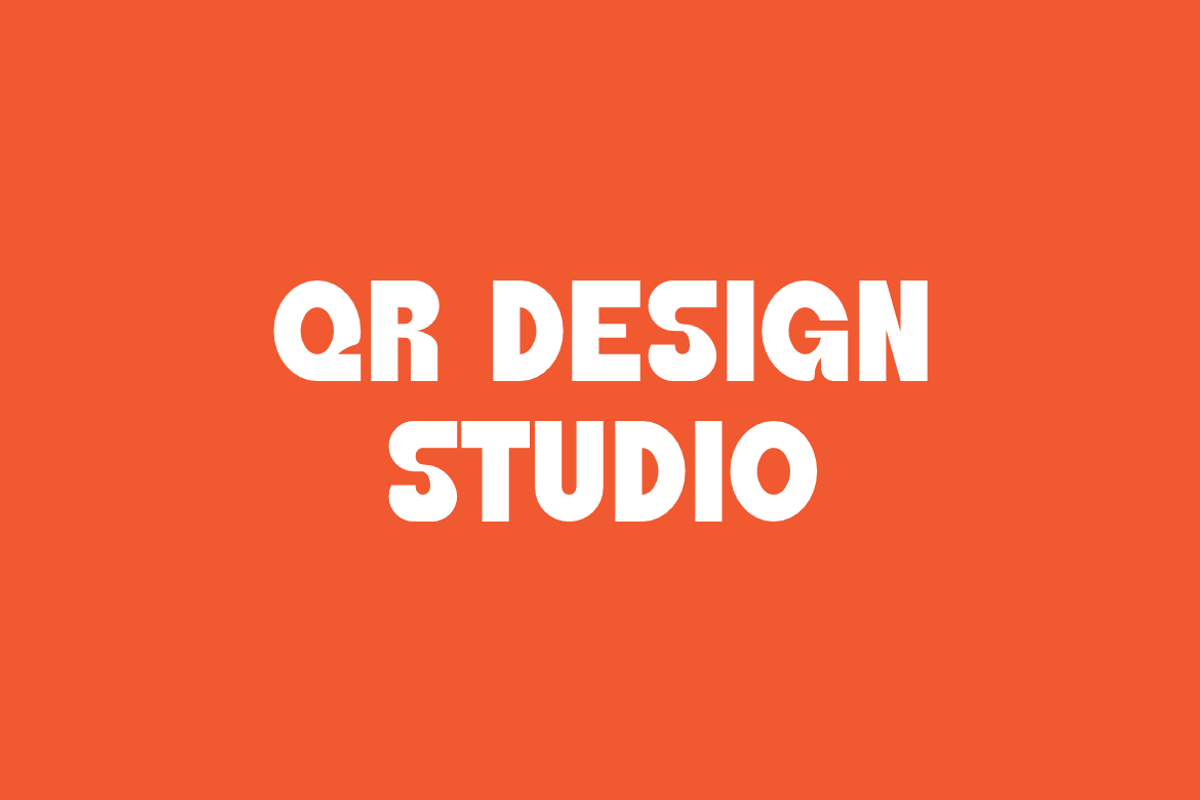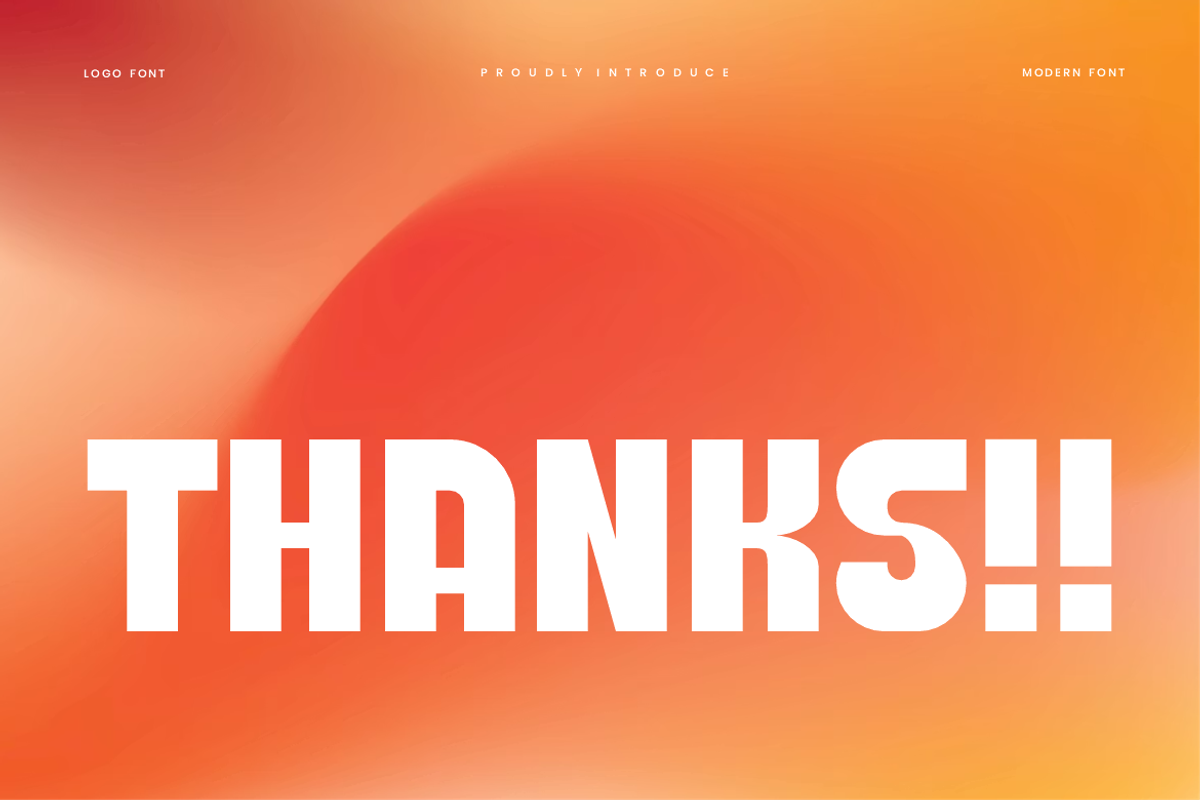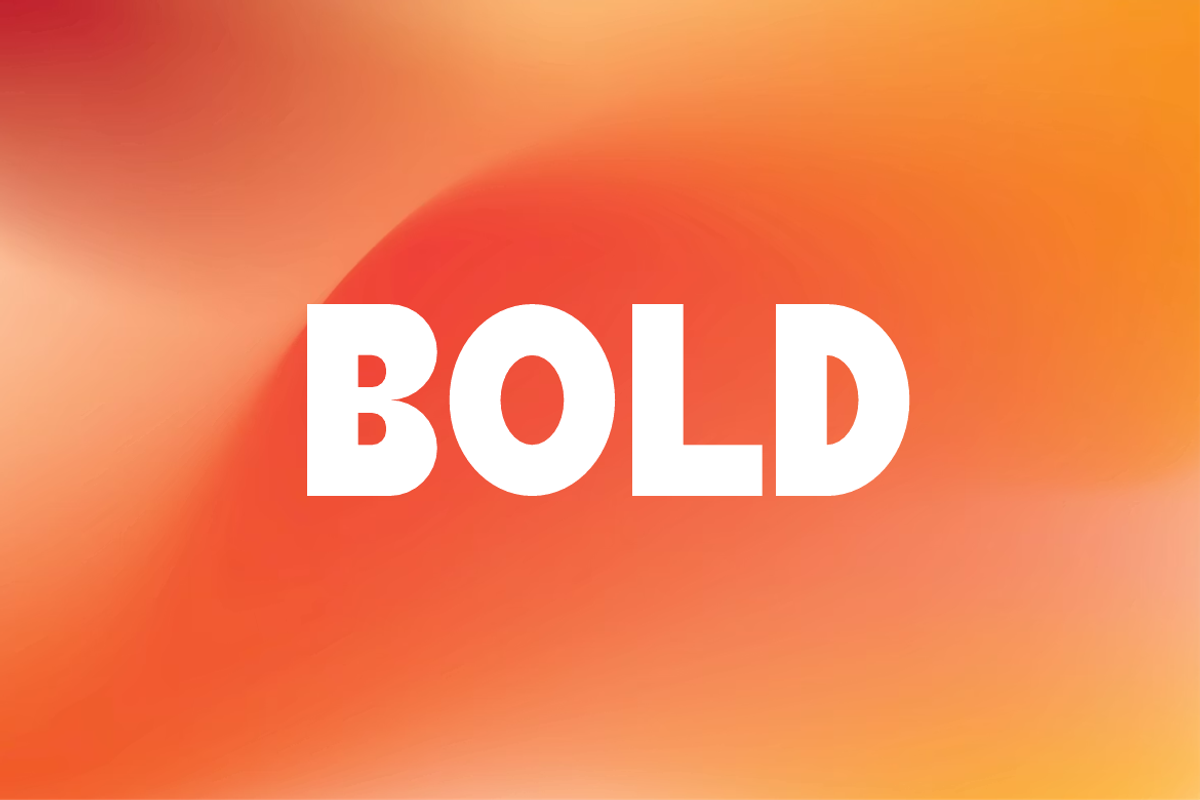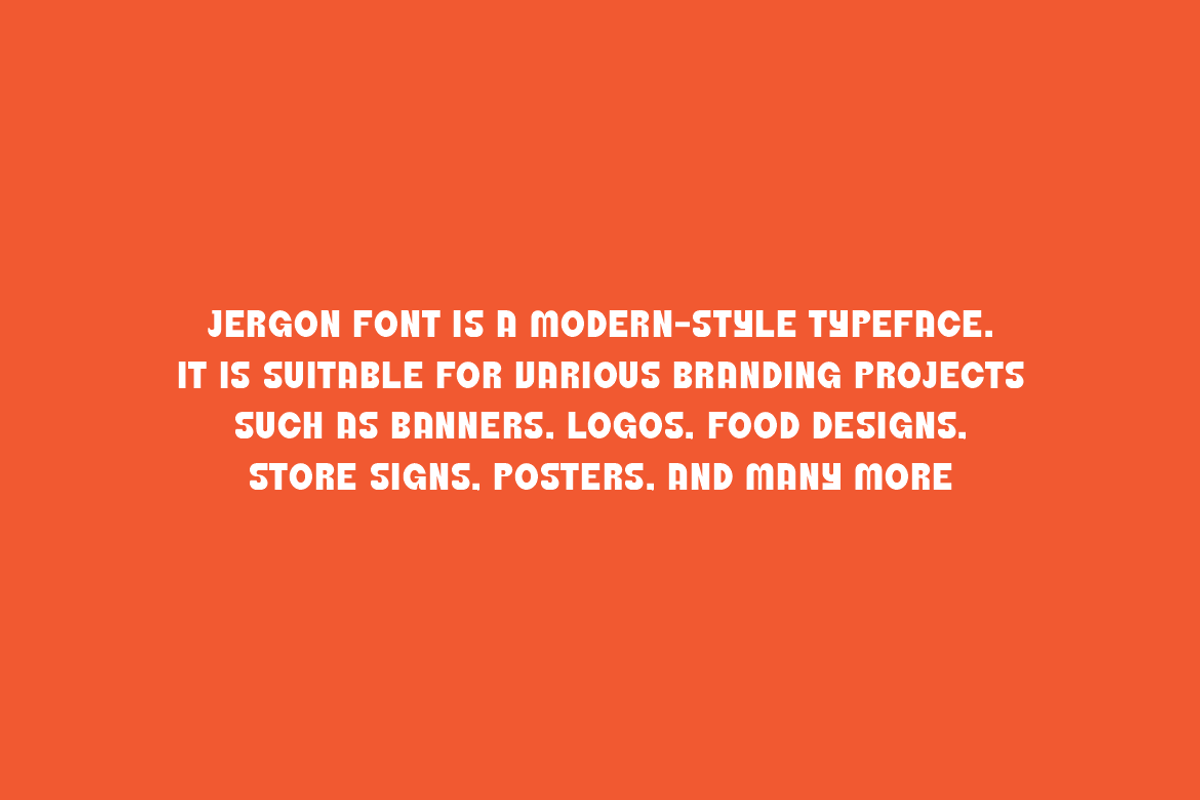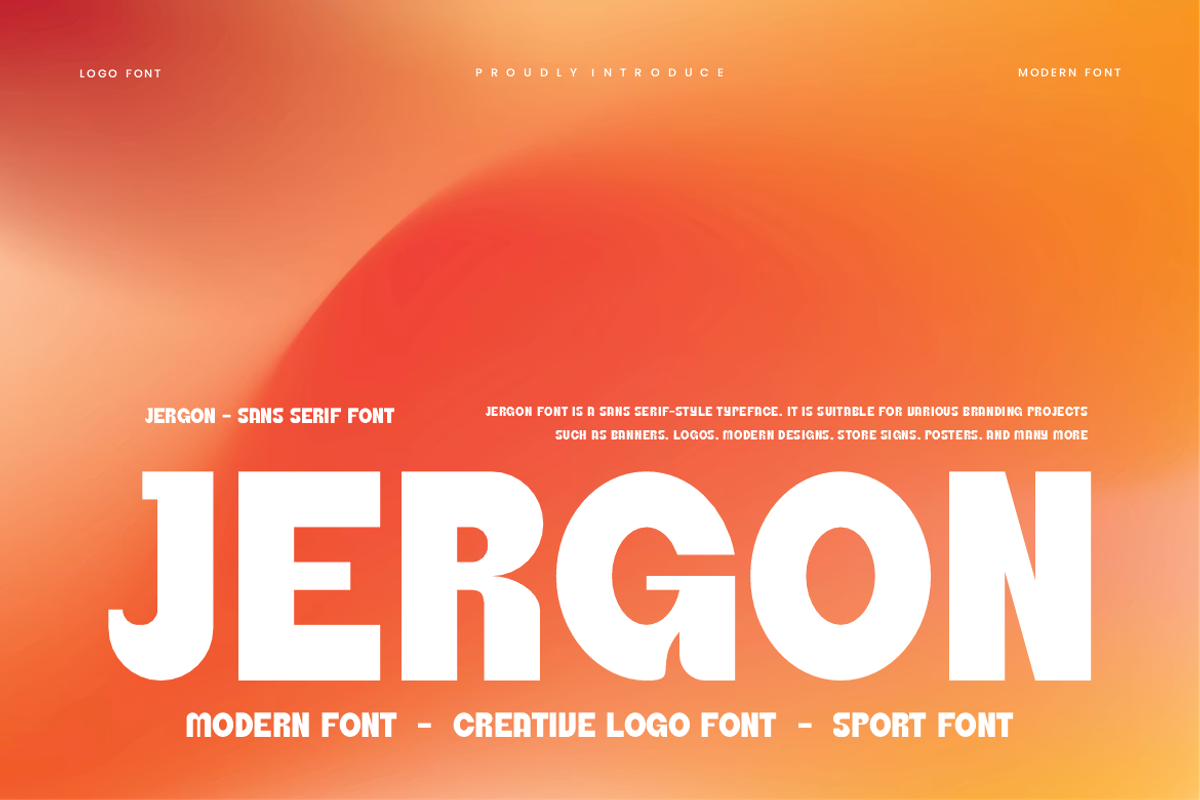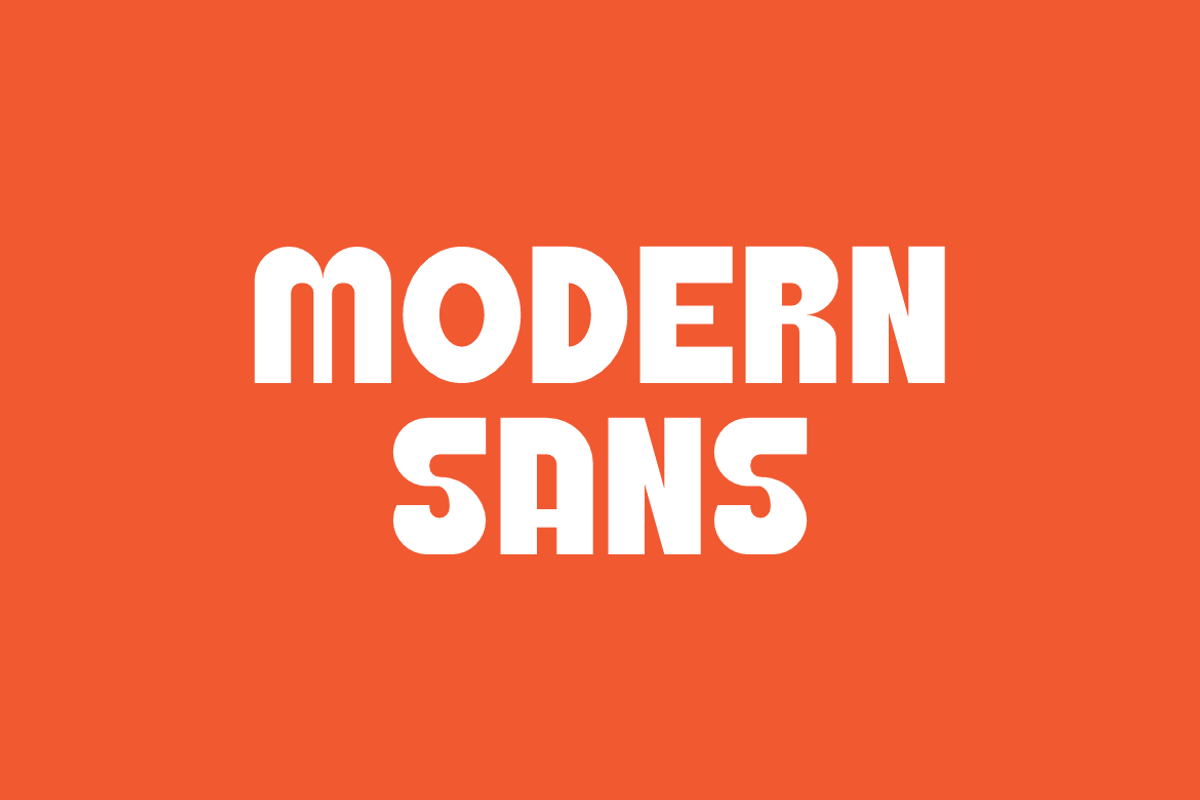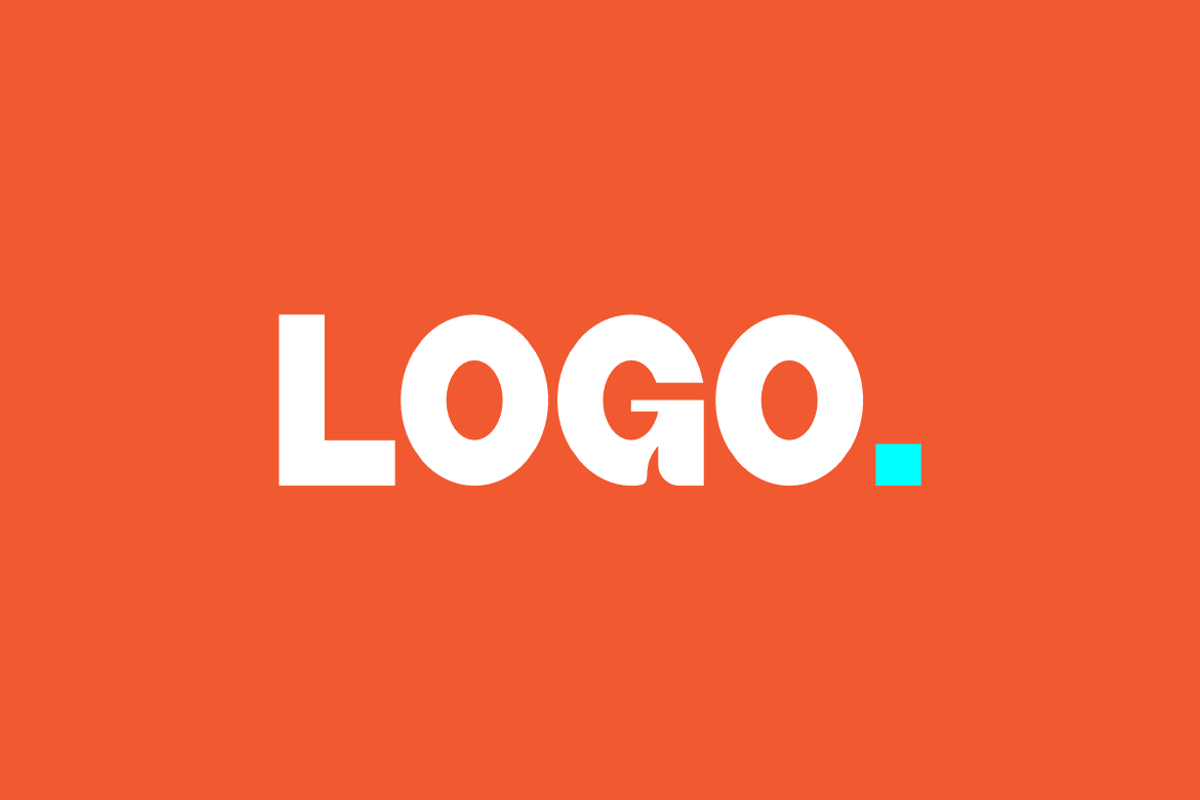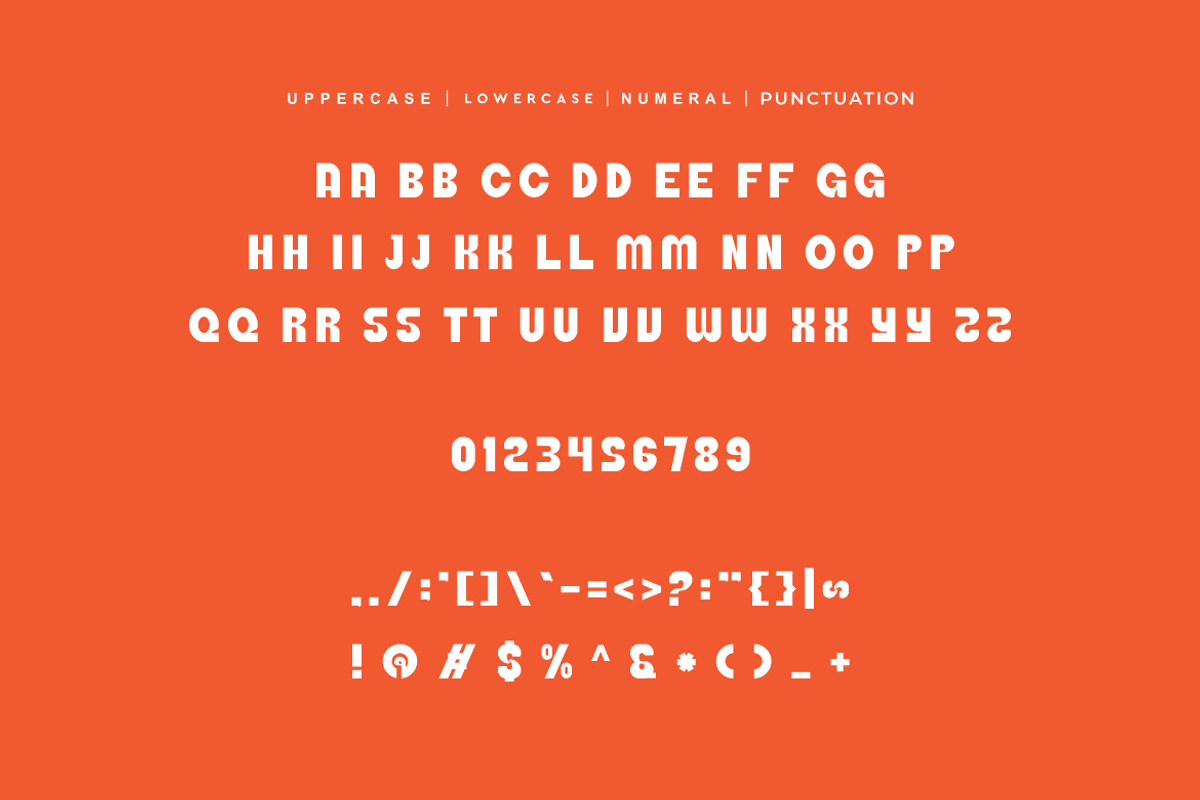
Jergon - Creative Logo Font
Jergon Font is a bold and authentic display typeface. It’s perfect for various branding projects such as logos, sports designs, and more. This font stands out beautifully in a wide range of contexts.